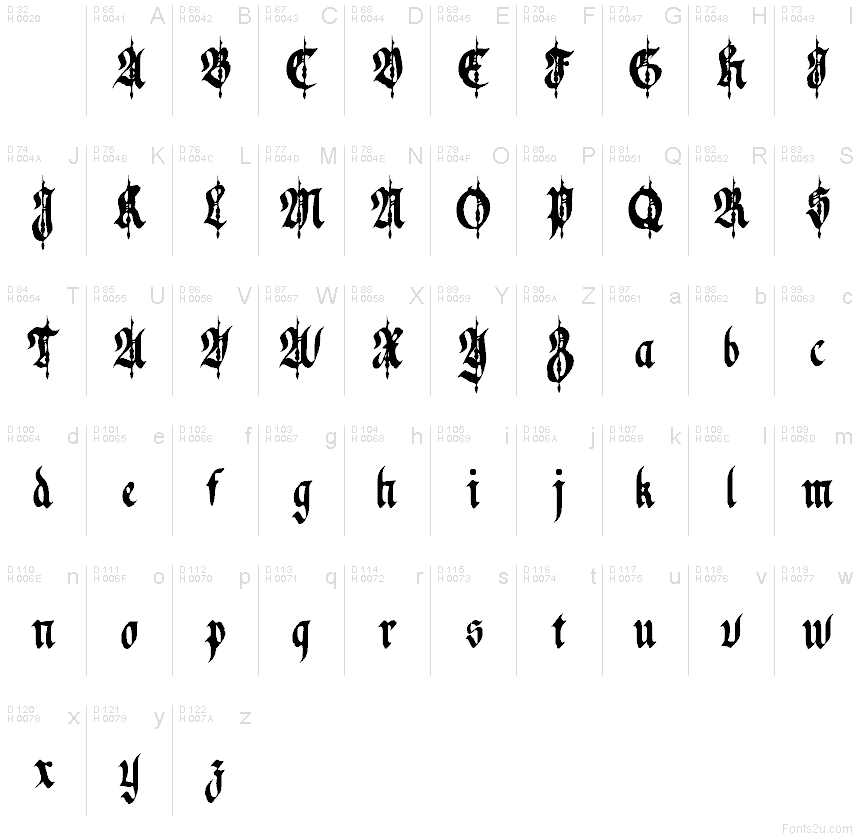
CSLamiaDrawn-Regular Demo
CS Lamia Drawn font by Craft Supply Co. is a free bold medieval gothic display font. Built within the CS Lamia family, it stands out for its blade‑like verticals, split spines, and inky, hand‑drawn edges that feel carved rather than set. The rhythm is tight and upright, with thorny terminals and bruised counters that leave a smoky, ritual vibe on the page without losing legibility.
This free font shines on metal band marks, fantasy book covers, occult posters, dark beer labels, game titles, Halloween merch, and tattoo studio branding. Using CS Lamia Drawn at larger sizes with a touch of extra tracking lets its textured cuts breathe; pair it with a simple geometric sans for captions to keep the focus on those dramatic blackletter forms.